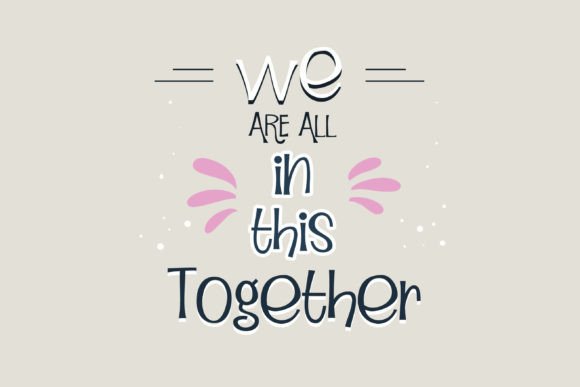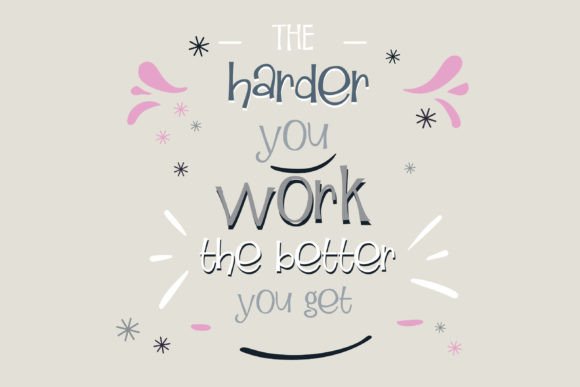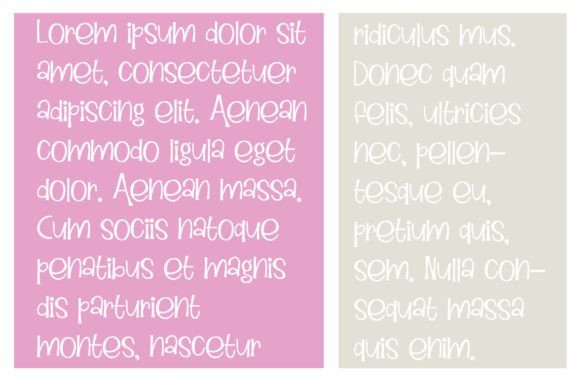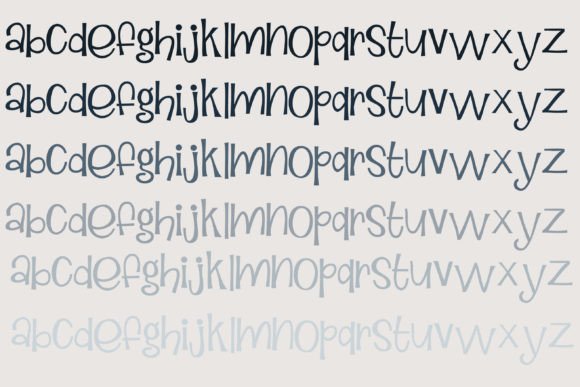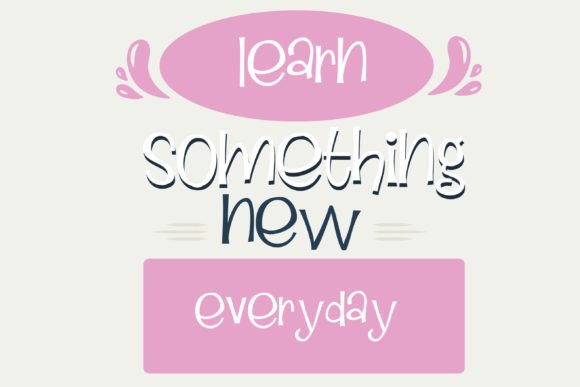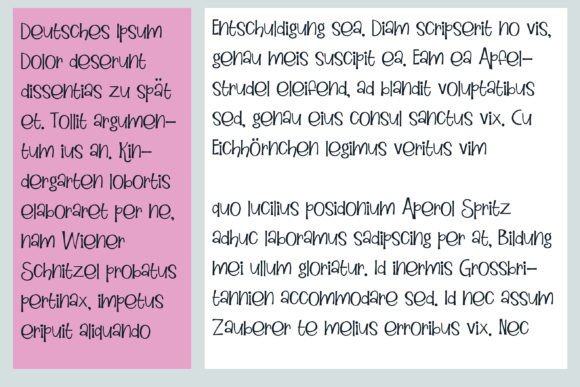
The Sweet Taste of Typography: Discovering Ice Cream Shop Font
Who hasn’t been inspired by the colorful, whimsical world of ice cream shops? The moment you step into one, the aroma of sweet treats and the vibrant colors of the decor transport you to a world of pure imagination. As designers, we often find ourselves seeking that same magic in our work. And what better way to capture the essence of an ice cream shop than with a font that’s as playful as it is charming?
Meet the Ice Cream Shop Font, a hand-crafted sans serif designed to evoke the feeling of a handwritten note from your favorite ice cream vendor. This delightful font is perfect for adding a touch of whimsy to invitations, greeting cards, and other design projects where a little bit of personality shines through.
Key Features of Ice Cream Shop Font
- Font Family: Ice Cream Shop Font is a unique, hand-drawn font designed to evoke the feeling of a classic ice cream shop. It is available in multiple font families, including Ice Cream Shop Font Regular, Bold, Italic, and Bold Italic.
- Size: The font includes a wide range of characters, including uppercase and lowercase letters, numbers, punctuation marks, and special characters, making it suitable for various text sizes and styles.
- Unique Characteristics: The font features a playful, whimsical design with intricate details and textures, giving it a distinctive and eye-catching appearance.
Ice Cream Shop Font Review
Overall, I’d say the Ice Cream Shop Font is a sweet addition to any dessert-themed project. It’s perfect for creating a playful and inviting atmosphere. ✨ The font’s rounded edges and whimsical feel immediately evoke the nostalgia of a childhood trip to the ice cream parlor. ✨ The font’s compatibility with a variety of devices and platforms is also a major plus.
However, I do have a few caveats to mention. ⚠️ The font’s limited character set can make it tricky to use for longer blocks of text. ⚠️ Additionally, the font’s bold weight can sometimes appear too chunky or overpowering. ⚠️ Finally, the font’s lack of italic or oblique styles can make it difficult to create emphasis or convey tone.
In terms of overall impression, I’d say the Ice Cream Shop Font is a solid choice for projects that require a lighthearted and playful vibe. While it may have some limitations, its strengths make it a worthwhile addition to any designer’s toolkit.
Pros:
- Whimsical and playful feel
- Perfect for dessert-themed projects
- Wide compatibility with devices and platforms
Cons:
- Limited character set
- Bold weight can appear too chunky
- Lack of italic or oblique styles
The Ice Cream Shop Font is commonly used in the following scenarios:
- Food and beverage branding, such as ice cream shops and cafes.
- Restaurant and hospitality design, such as menus and signage.
- Advertising and marketing materials, such as flyers and posters